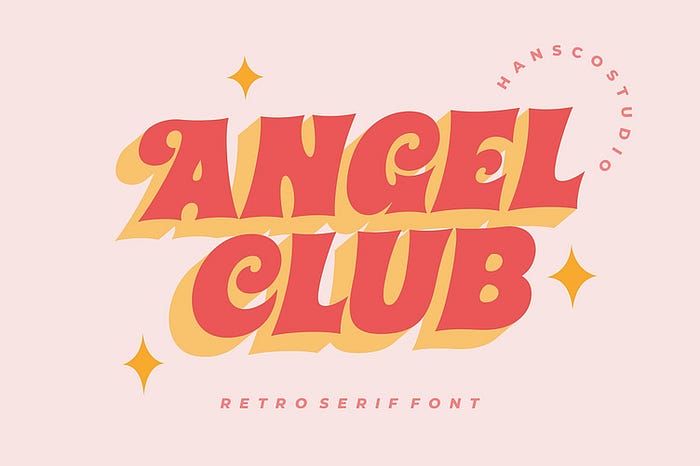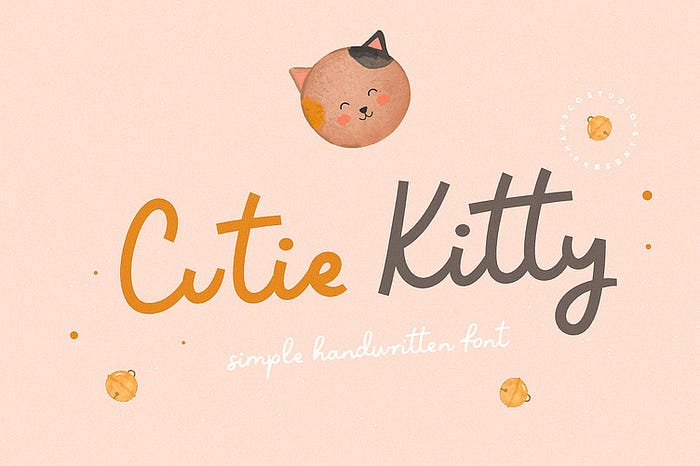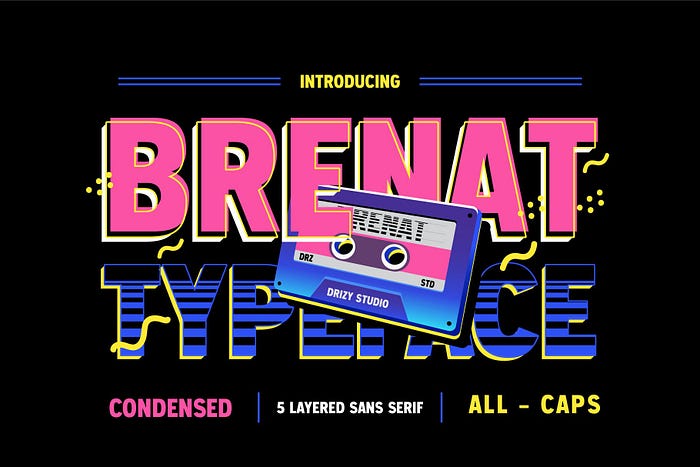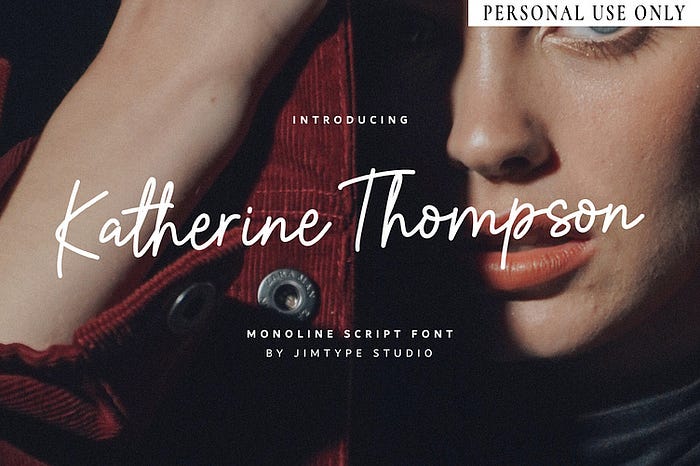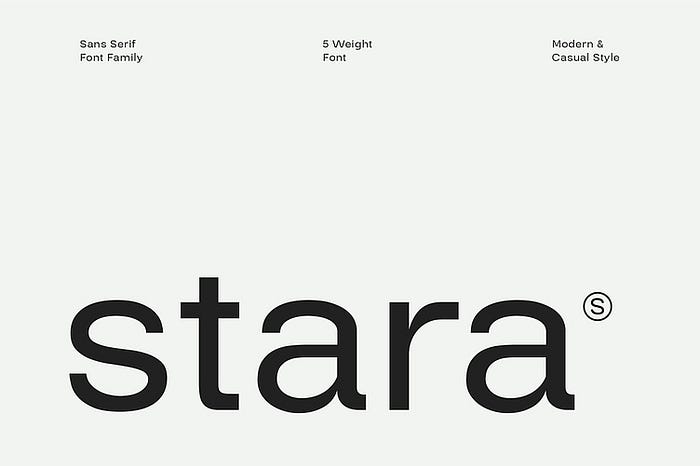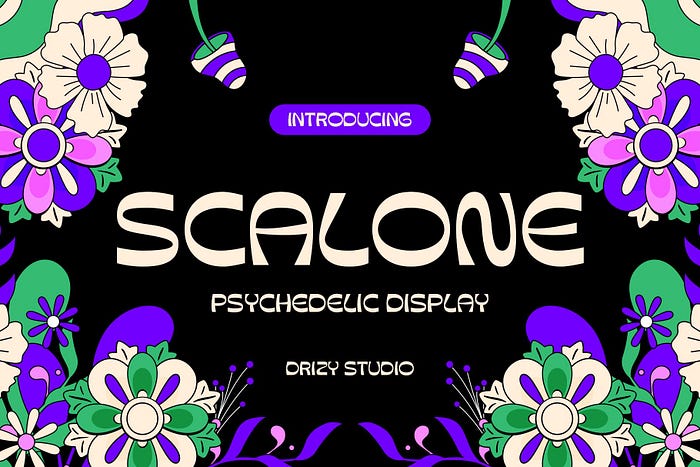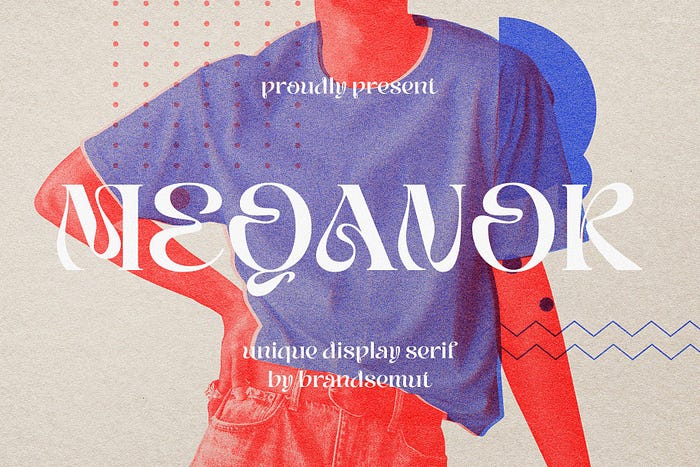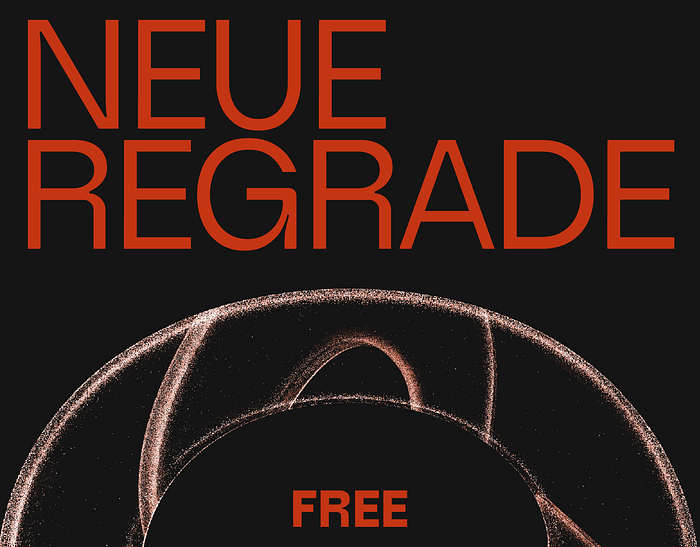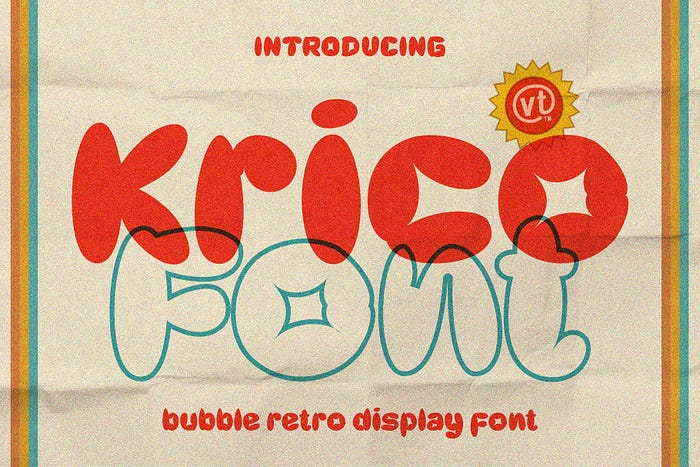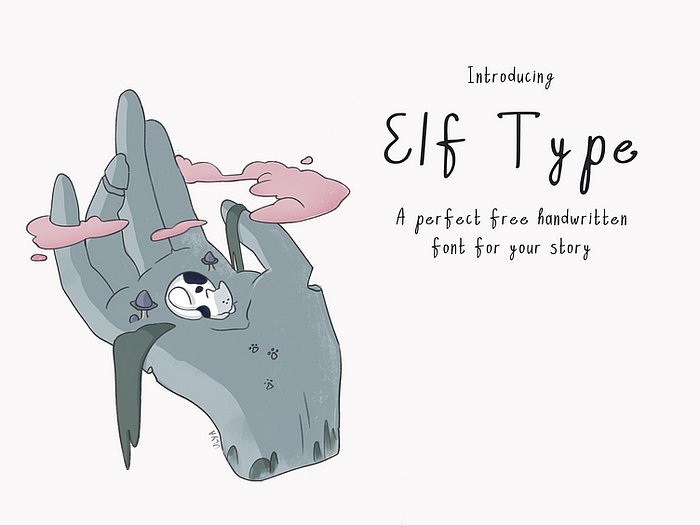
Choosing the right font can make a significant impact on the visual appeal of your project. As we step into 2024, let’s explore 30 outstanding free fonts that can add creativity and style to your designs.
Introducing Brenat, a modern and versatile Layered Sans Serif Font that effortlessly combines sophistication with a touch of contemporary flair. Crafted with precision and attention to detail, Brenat is designed to elevate your creative projects to new heights. Its clean lines, balanced proportions, and unique layering options make it a standout choice for a wide range of applications.
Krico is a font with an attractive bubble style from ViactionType. Available in 6 style options, perfect for designs with retro, fun and children’s themes.
Enchanted Tales” is a captivating serif font that offers a blend of classic elegance and modern versatility, making it an ideal choice for a wide range of creative projects. This font boasts an impressive support for 87 languages, ensuring global accessibility and inclusivity in your designs. One of the standout features of Enchanted Tales is its extensive collection of over 150 ligature glyphs, each meticulously crafted to add a unique touch of sophistication and flair to your text.
Quakers is the evolution of the font, ‘Cuanky,’ in its italic version,transformed into a captivating script typeface. Embracing the essence of retro design, Quakers exudes an aura of vintage elegance combined with modern boldness and elegance.
The manifestation of how we define balance is Anti Design. We believe that balance should not be fixed, having the same size or worth. Balance can be achieved through contrast, colour, or anything else, and it can also be asymmetrical. By combining several types of fonts, such as italic, serif, script, and vintage, we may establish an asymmetrical balance while maintaining harmony.
Lokanova is a display font with a sans serif type designed in a bold and unique style to give the impression of a firm but still playful design. Lokanova is available with uppercase, lowercase, number, symbol and multilingual
Introducing Keyute Typeface — a font from Dryy.type that embodies all the playful charm and whimsy of the current K-POP trend. Created with versatility in mind, this font is the perfect choice for elevating your designs to the next level.
Angel Club font is a retro serif and bold display font. You will get four types of fonts in this pack, Regular, slanted and Shadow version. Use this display font to add that special retro touch to any design idea you can think of!
Super Vibes font is a retro groovy display font. Use this display font to add that special retro touch to any design idea you can think of!. Masterfully designed to become a true favorite, this font has the potential to bring each of your creative ideas to the highest level!
Say hello to Katherine Thompson! Monoline signature script font. Stylish casual charm makes it appear readable, and, ultimately, incredibly versatile for branding, logo, blog headline, photography, watermark, social media posts, advertisements, product designs, labels, stationery, wedding designs, product packaging, special events, or anything that need a stylish casual taste.
Tropi Land font is a wavy, playful and natural handwritten sans serif font. You will find many ligatures and alternate character in it. This font is perfect for creating logo, watermark, branding, wedding invitation, quote, tagline, or anything else. Let’s make something beautiful project with this.
This font inspired by freestyles that are trending at the moment such as urban style and several other styles.
This font is perfect for professional touch makes this font more elegant and suitable for all types of projects you are working on. But this font is also suitable for logos, branding, greeting cards, invitation cards, advertisements, titles, healines, book titles, stickers, packaging, quotes, posters, t-shirts/apparel, billboards and others.
Holingston is a Handwritten brush script that is written casual and naturaly. the letters are made with brushes on paper and then scanned carefully drawn into vector format. This typeface is ideal for use in any professional project, such as blog titles, posters, wedding elements, t-shirts, clothing, book covers, business cards, greeting cards, branding, merchandise etc. It has 4 styles, regular, regular slant, clean and clean slant variations, this package is also has many alternatives underlines that make your text and design more interesting.
Elf Type is a whimsical and playful font designed with a touch of fantasy.
Its characters have a unique and enchanting style, making it suitable for creative and lighthearted projects.
This font is not only visually appealing but also comes with the added bonus of being fully free for both personal and commercial use. However, it’s important to note that the font is prohibited for resale. This ensures that it remains accessible to a wide audience without any commercial restrictions.
Stara Sans Serif Font is a sans serif font family that combines simplicity with elegance. With its clean design and balanced proportions, this font gives off a modern and professional feel. Each letter is carefully designed to ensure optimal clarity and legibility.
Atleigh Typeface, an Art Deco typeface that combines elegance and modernity. With six weights, twelve styles, and OpenType features, it offers versatility for various design needs. Atleigh provides two optical choices — Display and Headline. Additionally, it’s available as a variable font for ultimate customization.
Shine Coasty font is a retro serif and bold display font. You will get alternate characters such as swash on some characters. Use this display font to add that special retro touch to any design idea you can think of!.
Introducing Scalone — Psychedelic Display Font, a vibrant and mesmerizing typeface that effortlessly blends the retro charm of psychedelic art with a modern twist. This font is a celebration of creativity, individuality, and the bold spirit of the unconventional.
This unique bubble font is inspired by graffiti and street art, infused with a modern layout that is sure to stand out. The font also incorporates a mix of y2k culture and streetwear visuals, which are currently trending in design identities.
Introducing New Roshelyn (Extra Light Version ) Free Font, a new carefully crafted and nicely balanced curve on script typefaces with personality. Also with Extrude Version and Swash Tail make it look Retro. You can use it as a logo, badge, insignia, packaging, headline, poster, t-shirt/apparel, greeting card, wedding invitation, etc.
Smothy is a cute and fun display font with bubble style. You will get three types of fonts in this pack, Regular, Bubble and Shadow version. Use this display font to add that special bubble touch to any design idea you can think of!
.
Meqanor, a typeface in a league of its own, belongs to the distinguished category of display serifs, designed to make a statement and capture attention. Crafted with precision and creativity, Meqanor stands out as a unique and distinctive font that brings a touch of sophistication to any design.
Zealandia stands out in the world of typography as a humanist sans serif font, renowned for its versatility and adaptability. This font’s journey began as a unique request from the creator’s spouse, who needed a font suitable for map-making. Embracing this challenge, the creator expanded the scope of Zealandia, crafting it into a font that not only excels in cartographic applications but also shines in various other contexts.
Neue Regrade is a free to use sophisticated variable sans serif typeface, which combines the smooth curves of gothic typography and the slight inktraps in modern typefaces. It started as a university project, but due to my obsession to the beauty of typography I made them 6 weights with matching slant, some ligatures and some styles including the letter a, g, o, f, t and k.
Dream Spark Font is a bubble font with a lively appearance that will fill your designs with cheerfulness! It’s great for covers, posters, spring designs, marketing materials, and anything that needs to stand out!
.
Introducing Romancelia — a stunning display condensed font designed to bring an air of Romance and Valentines movie. Romancelia Romantic Condensed Font is an exquisite typeface that effortlessly captures the essence of romance and elegance. This condensed font is meticulously crafted to convey a sense of intimacy and sophistication, making it an ideal choice for projects that require a touch of love and charm.
Enjoy Forest font is a retro serif and bold display font. You will get three types of fonts in this pack, Regular, Outline and Shadow version. Use this display font to add that special retro touch to any design idea you can think of!
Uphoria is a modern serif display with a distinct curve that retains a serif sense along with each glyph. Experimental design, on the other hand, disregards design standards while retaining balance. Carefully created and developed, and appropriate for all design requirements.
Cutie Kitty Font is a simple, modern and natural handwritten font. This font is perfect for creating logo, watermark, branding, wedding invitation, quote, tagline, or anything else. Let’s make something beautiful project with this.
Giyaste Font is an elegant serif font combined with a classy and modern style. This type of font is very suitable for your various needs such as branding projects, logos, wedding designs, social media posts, advertisements, product packaging, product designs, labels,